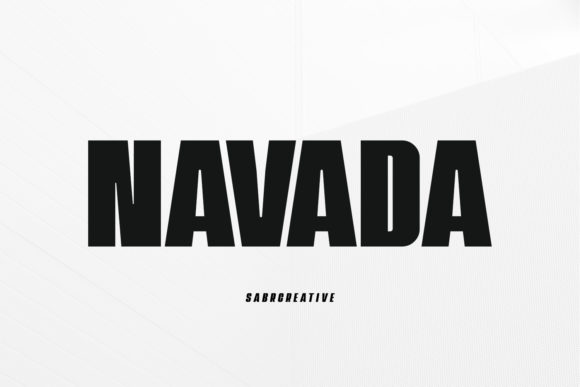
Get ready to embark on a typographic adventure with the captivating Navada font family! These sans serif gems, crafted by the talented sabrcreative, will ignite your creativity and transform your designs into masterpieces.
Navada's clean lines and alluring curves exude sophistication, making it the perfect choice for elegant branding, captivating headlines, and impactful marketing materials. Its versatility knows no bounds, extending its charm to website design, social media posts, and any project where style and readability converge.
More than just a font, Navada is a gateway to expressing your unique voice. Its modern aesthetic will elevate your designs to new heights, capturing attention and leaving a lasting impression. With Navada, your words will dance off the page, captivating readers and conveying your message with effortless grace.
Embrace the allure of Navada and unleash the full potential of your creative vision. It's not just a font; it's an invitation to redefine typographic boundaries and create designs that resonate deeply with your audience. Join the typography revolution and let Navada's enchanting presence elevate your designs to extraordinary heights!